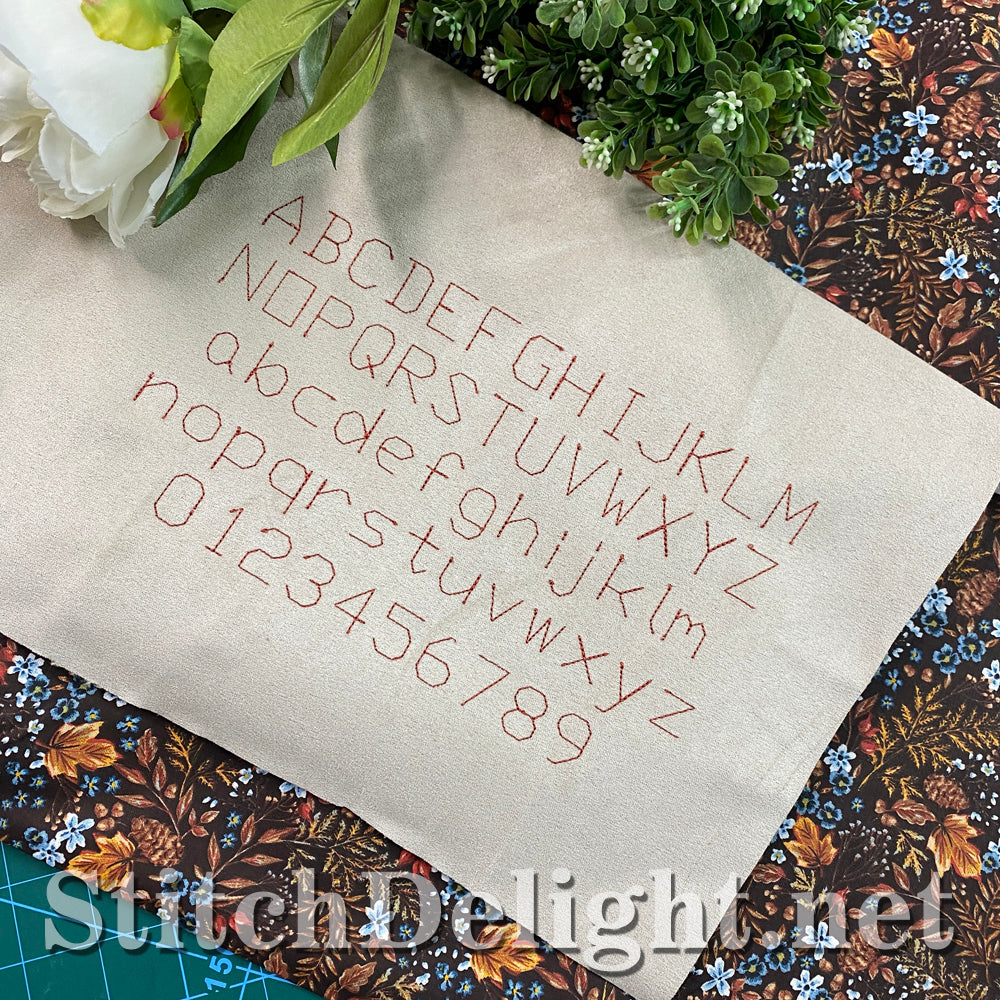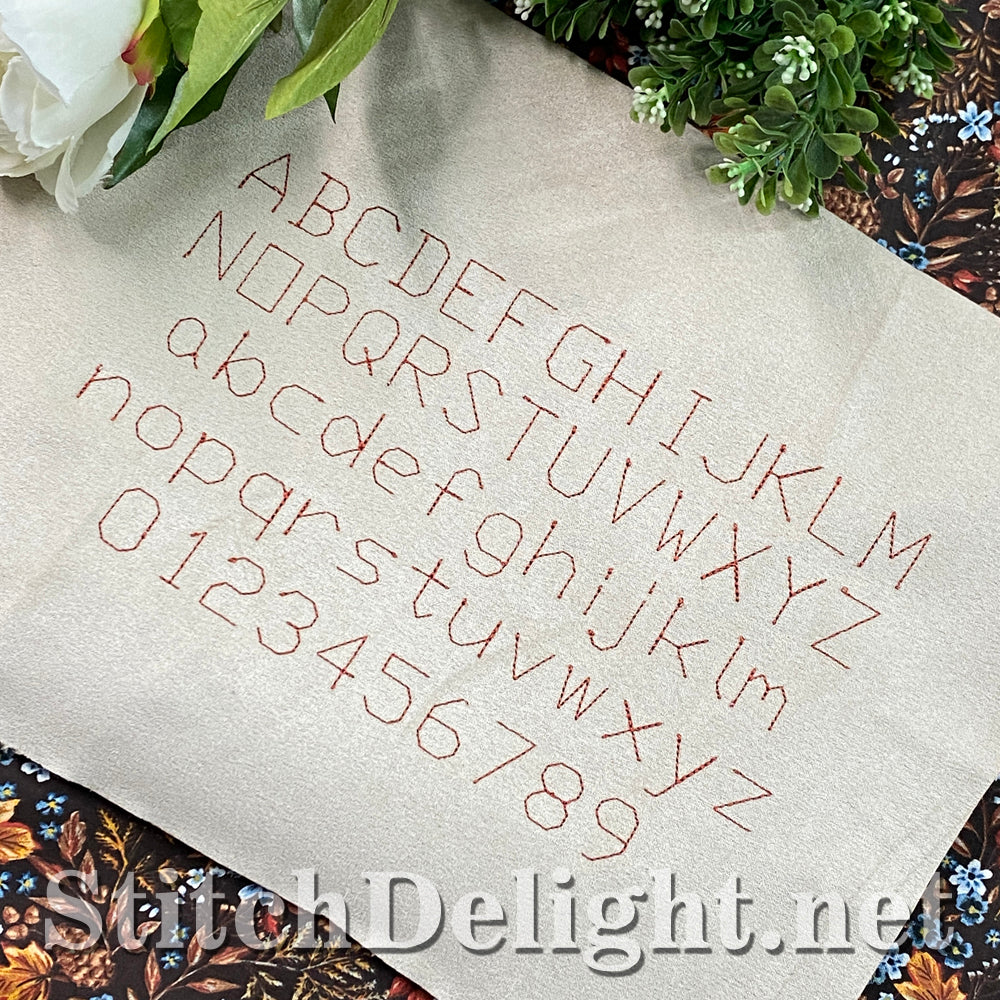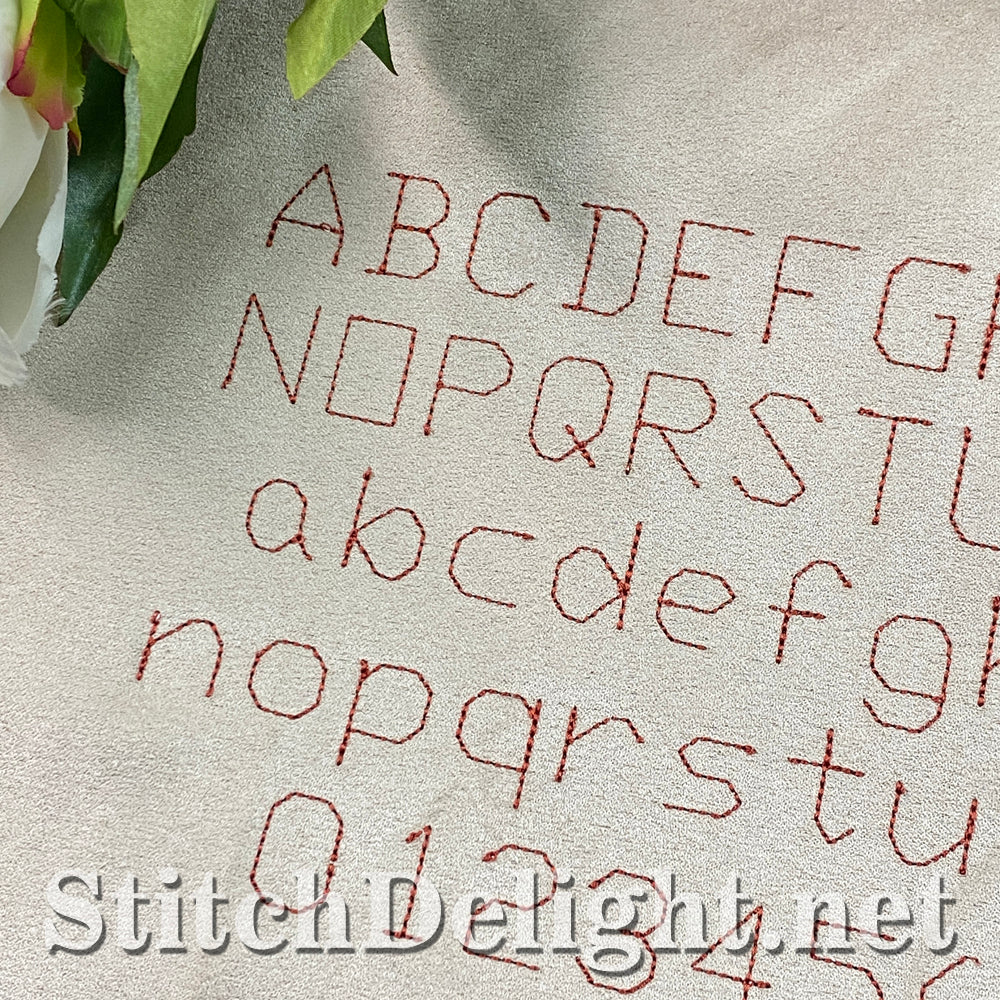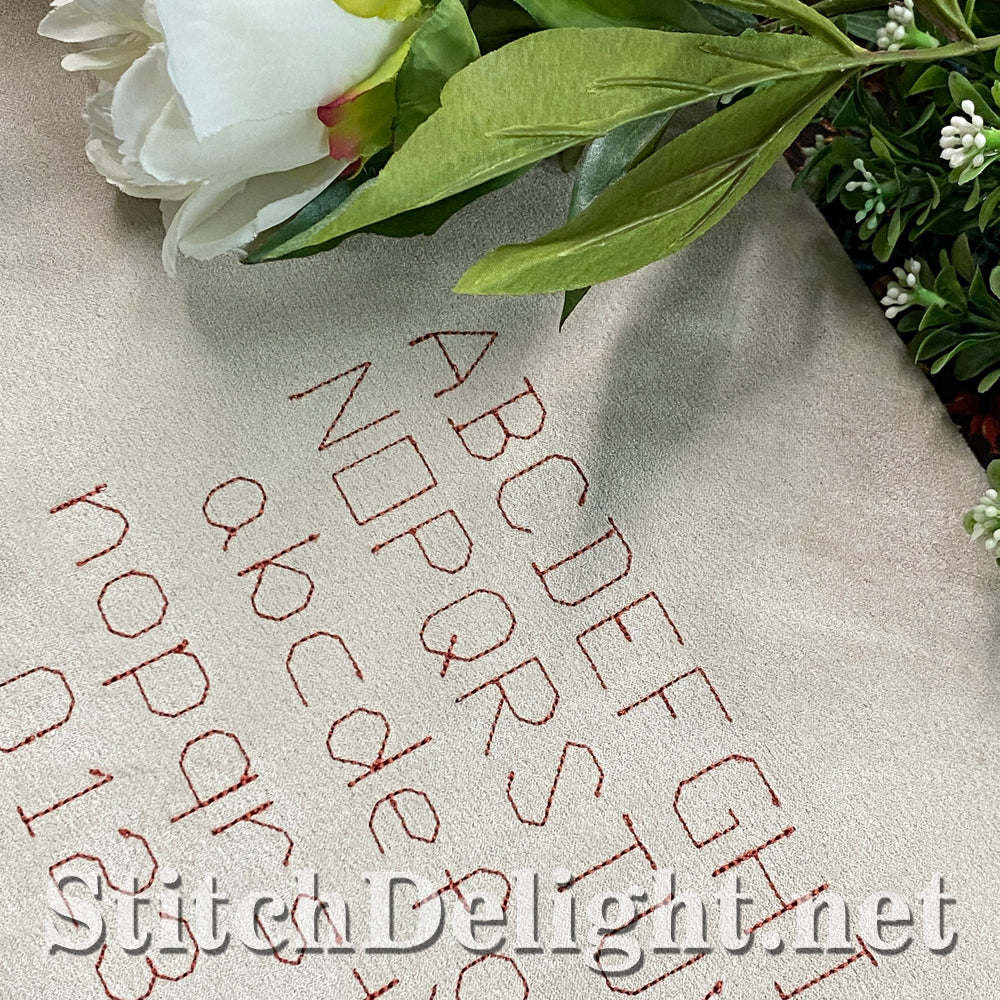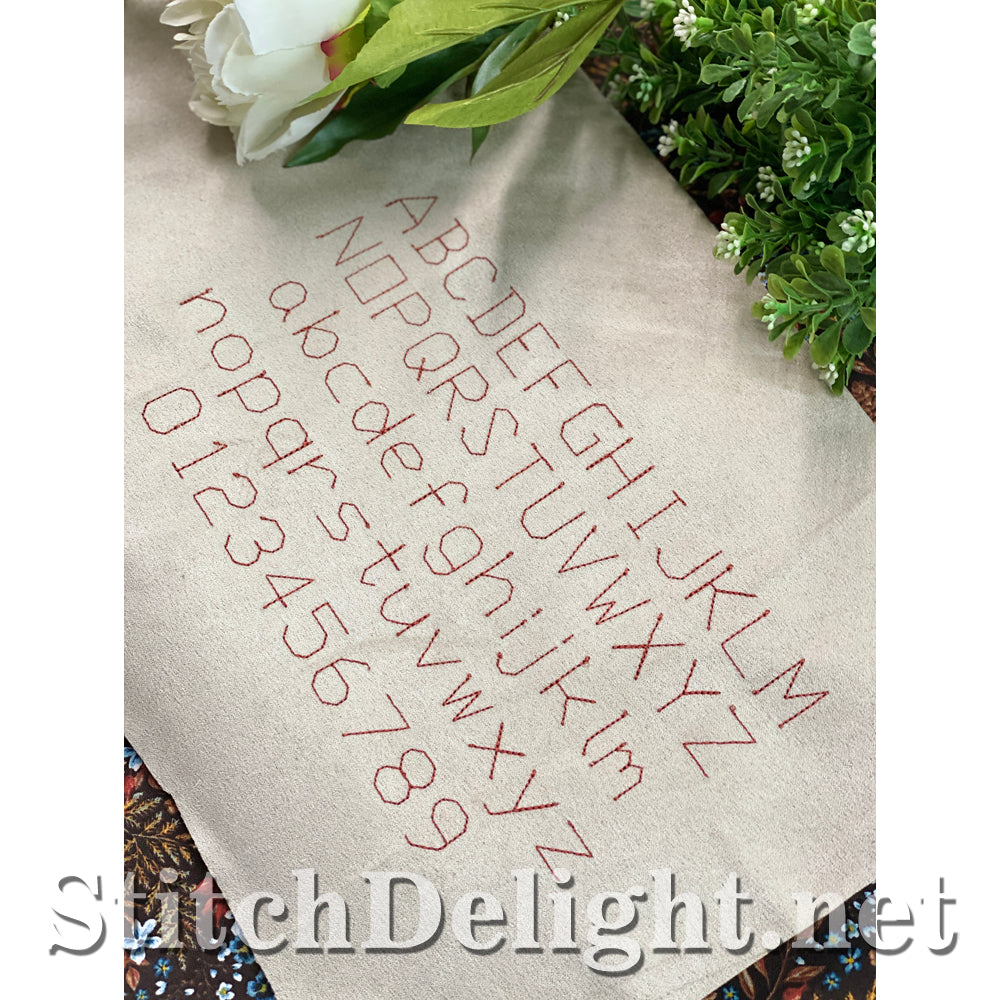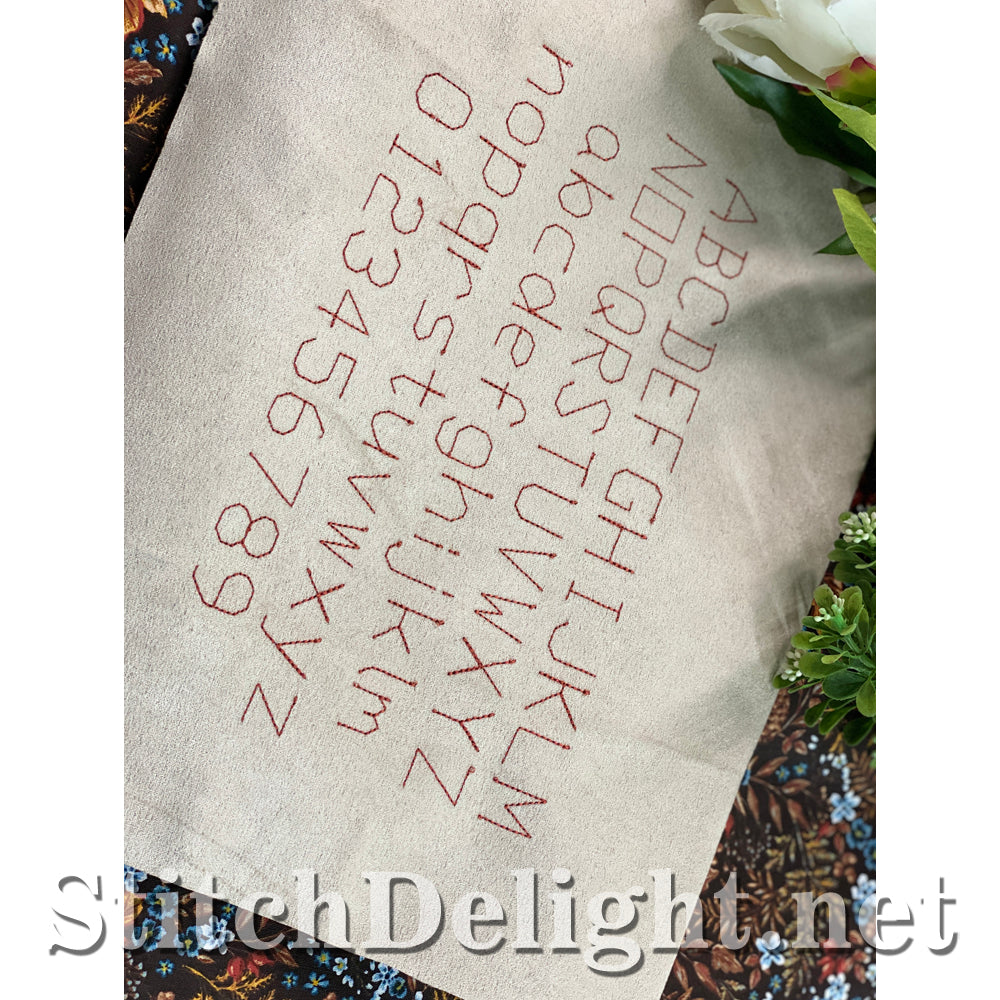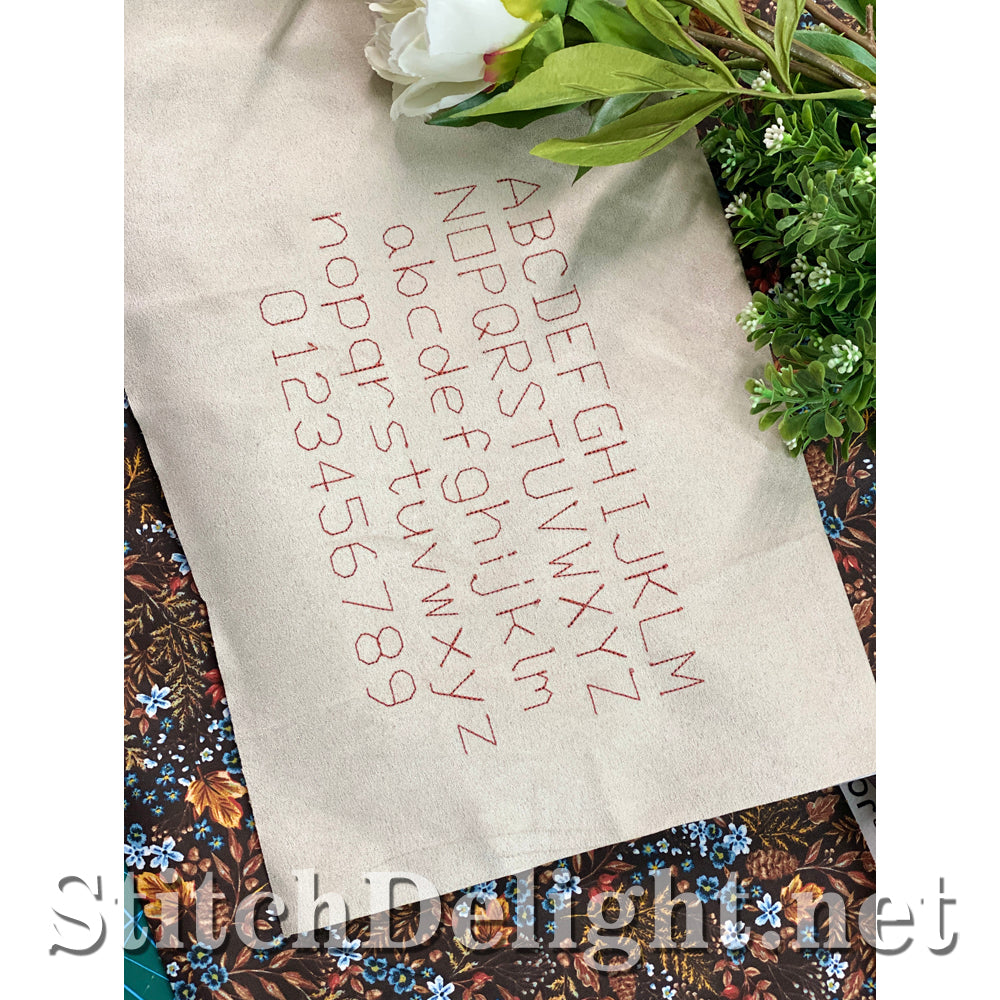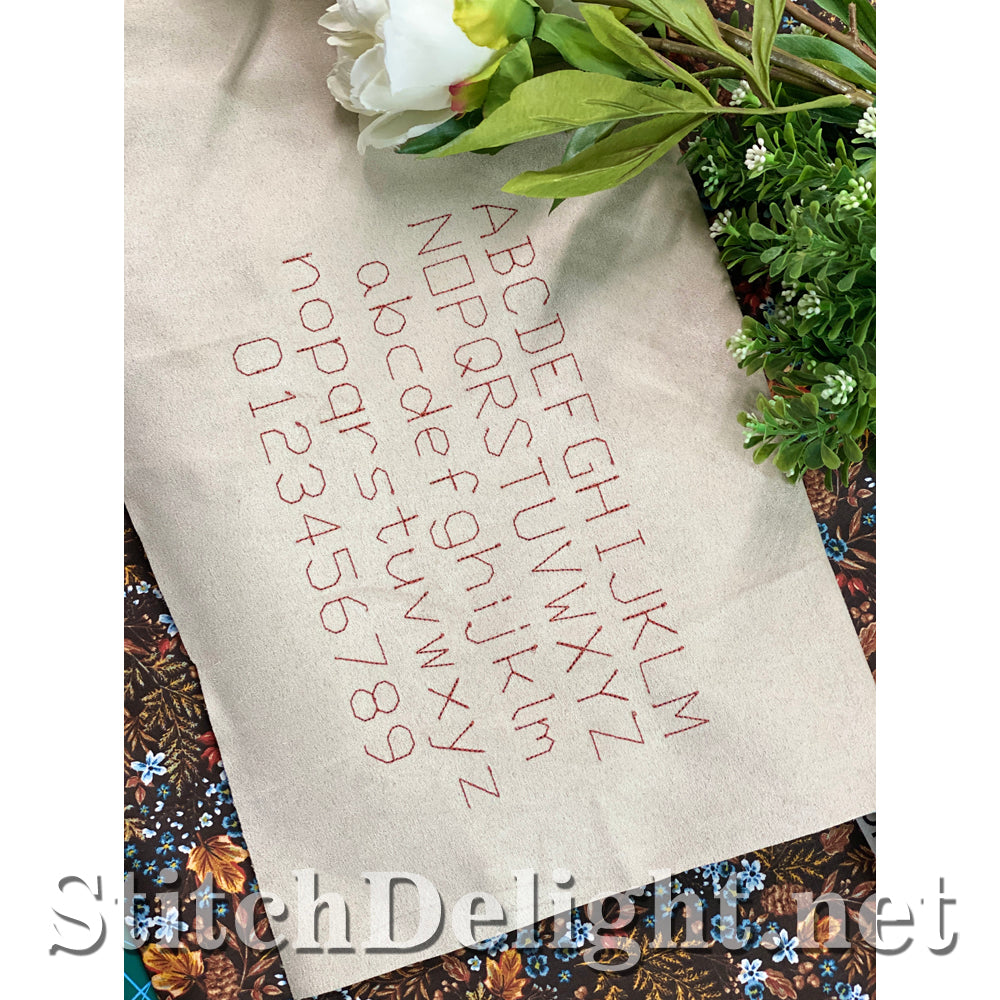
SDS5506 Line Font Three Quarter Inch
This line font is just 3/4 " high and perfect for those smaller projects you want to add some text but no space for a bulky font. BX format included